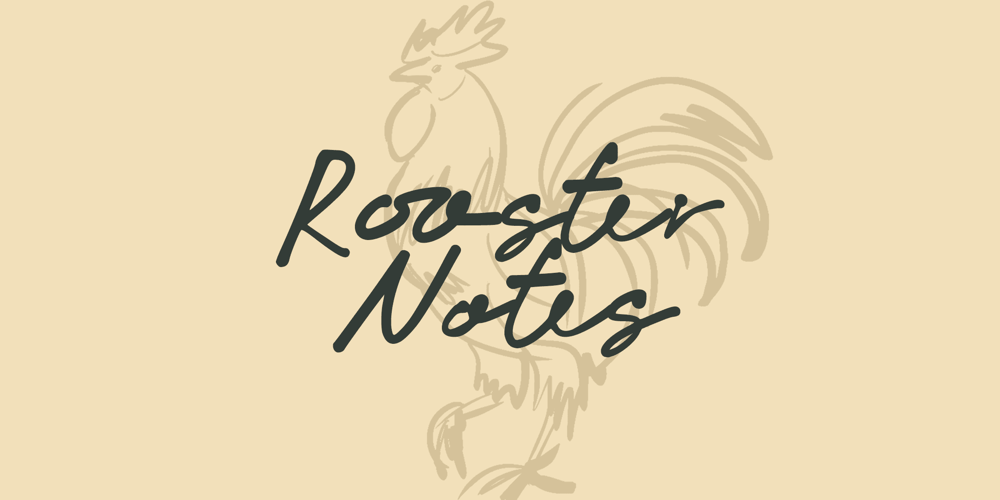
Rooster Notes Font Family was designed by Winarno, Eko Kurniawan and published by Enbe Studio. Rooster Notes contains 1 styles and family package options. Rooster Notes is a type of letter that comes from the handwriting of someone who is learning to write every day using a brush manually, thus creating very natural handwriting. You should try it for your design project, because it will create a design that is different from usual and will be of great interest and curiosity for every audience who sees it. It is very suitable for designs that want to look contemporary, such as social media stories, banners, even from logo designs to products that will be very unique and different.